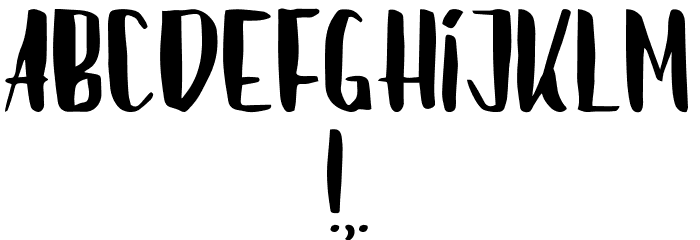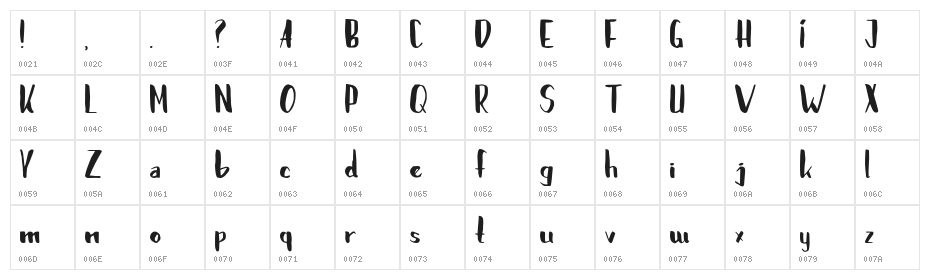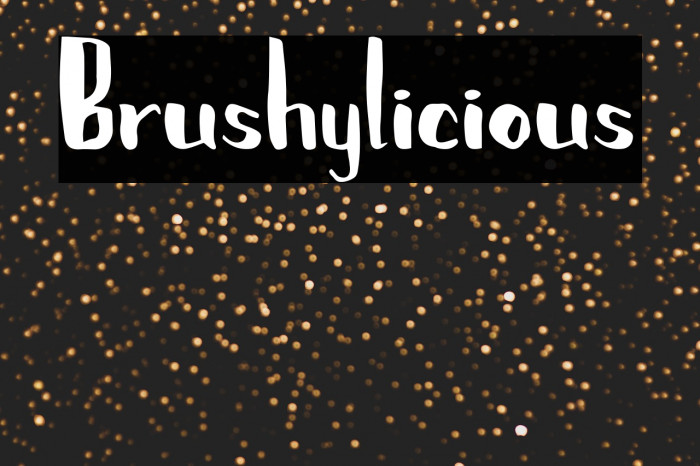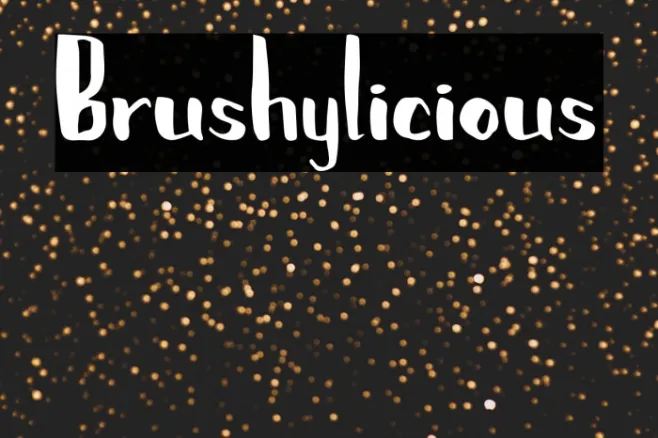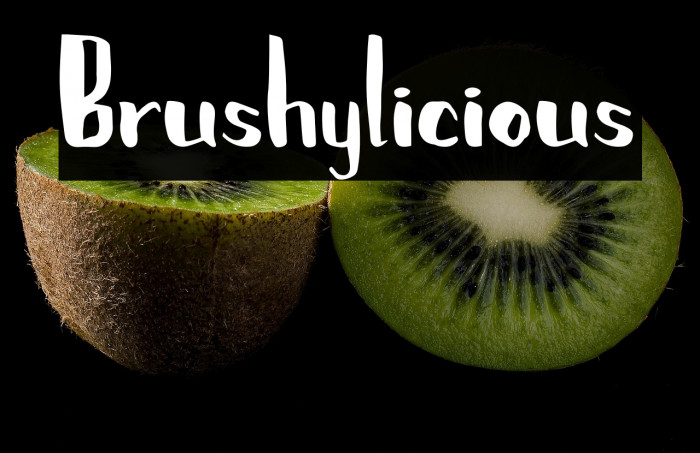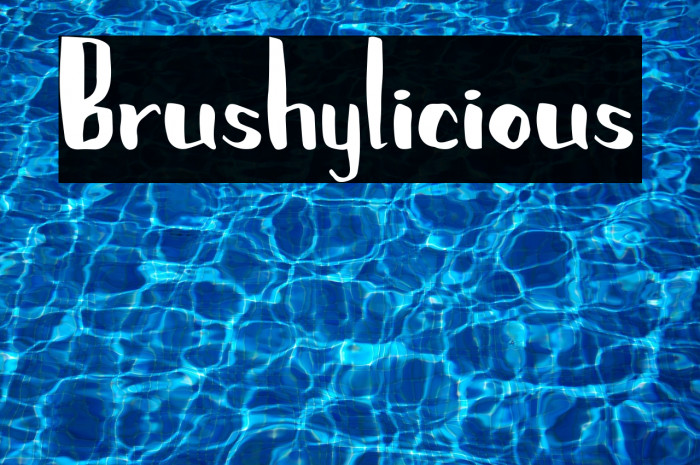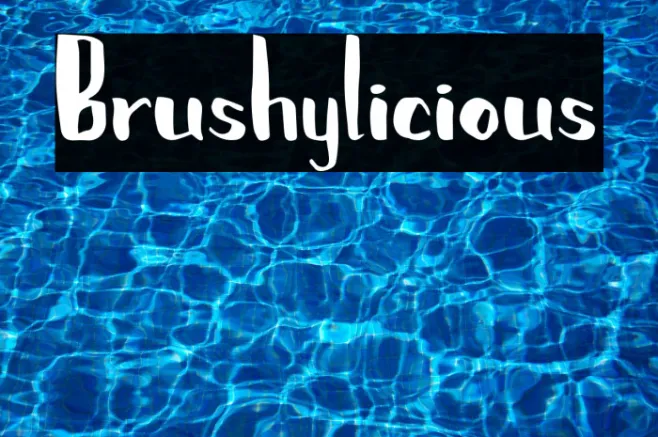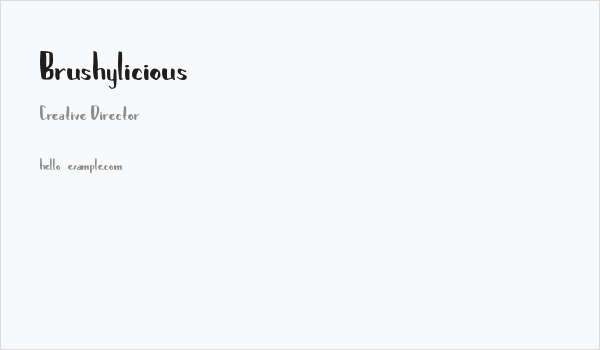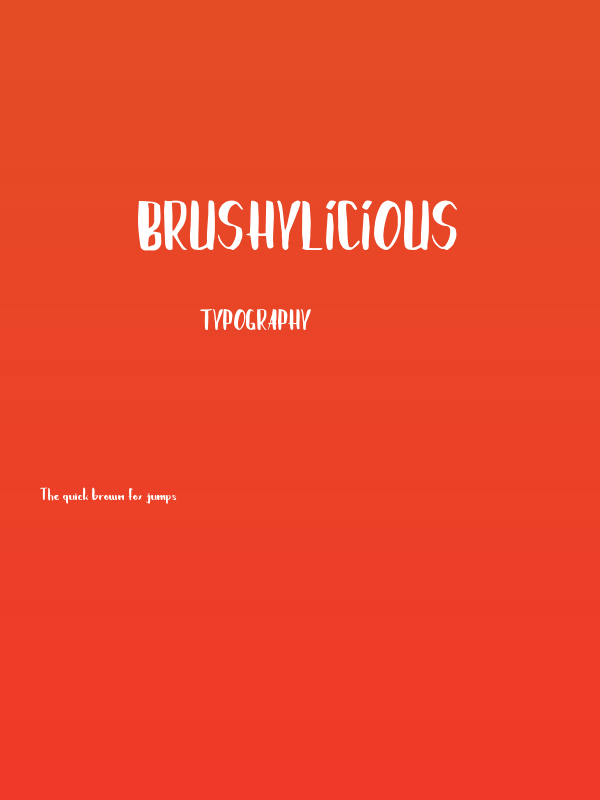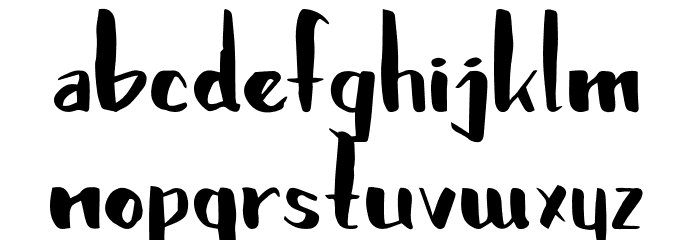
Brushylicious Font
Brushylicious Description
This font features a playful and energetic brush style, characterized by its bold and expressive strokes. The letters have a hand-drawn appearance, with varying thickness that gives it a dynamic and lively feel. The uppercase and lowercase letters maintain a consistent style, with some characters having unique flourishes that add to its charm. The numbers and special characters are equally expressive, making the font suitable for creative and informal designs. Its organic and artistic nature makes it stand out, perfect for projects that require a personal touch.